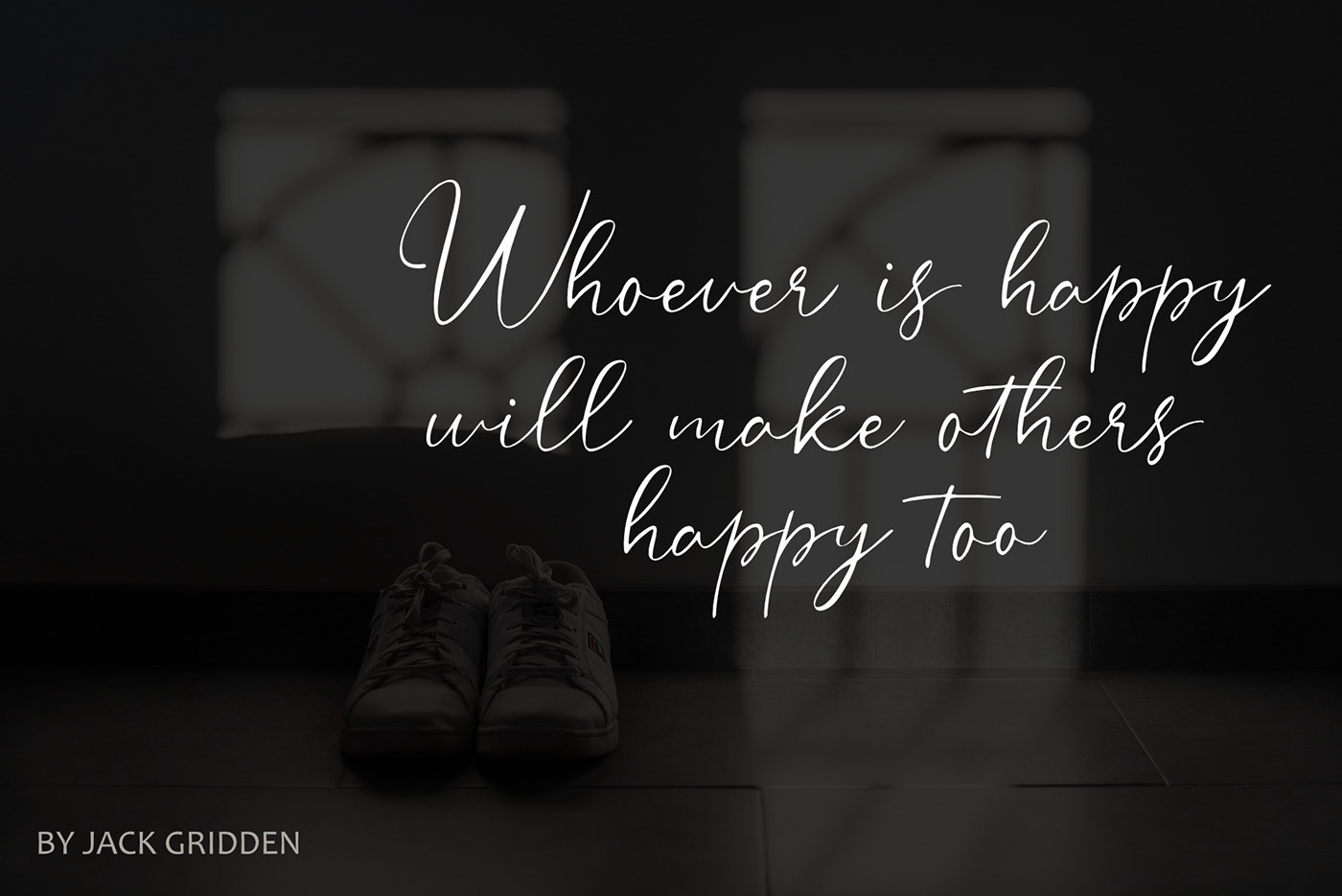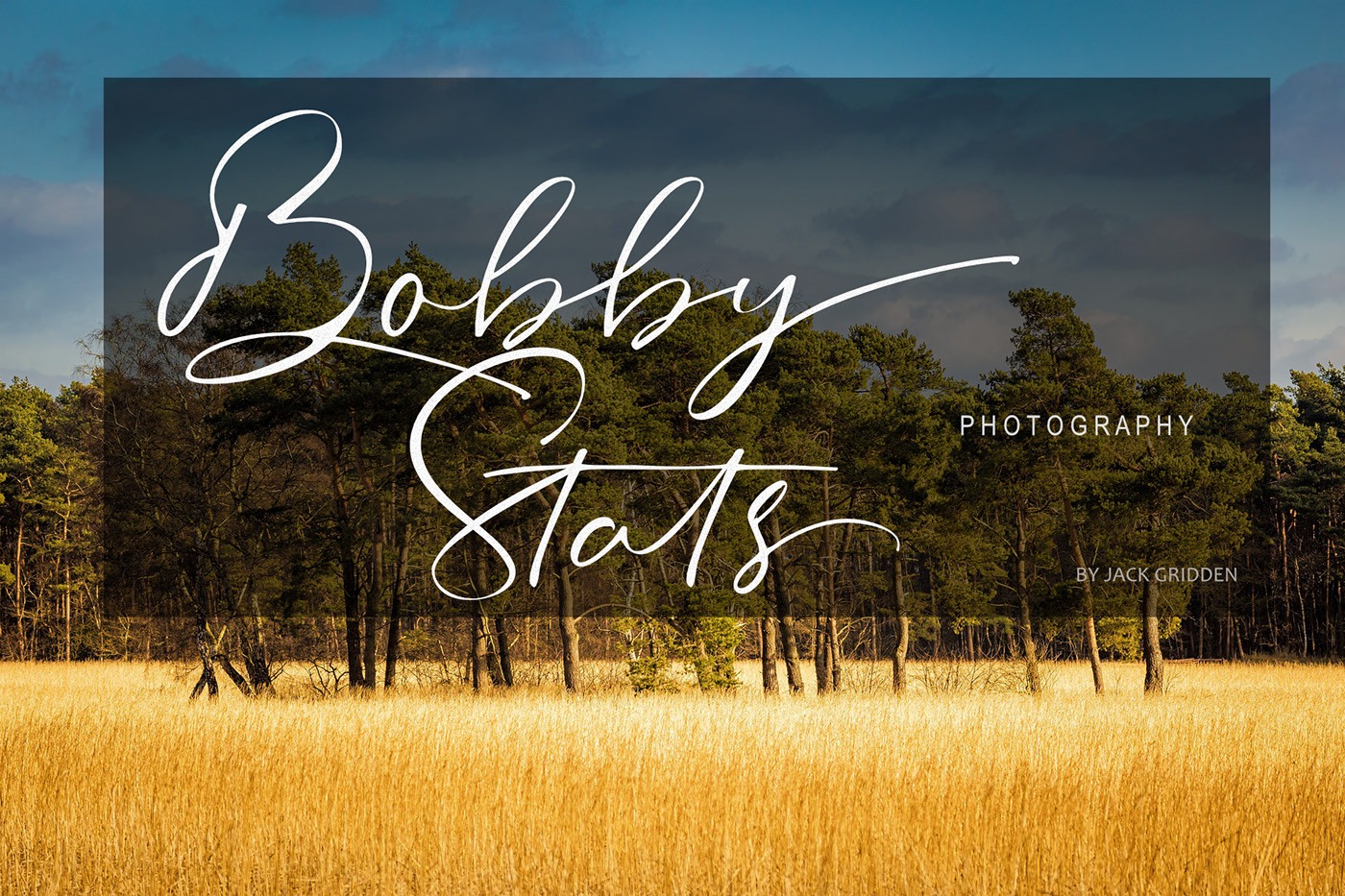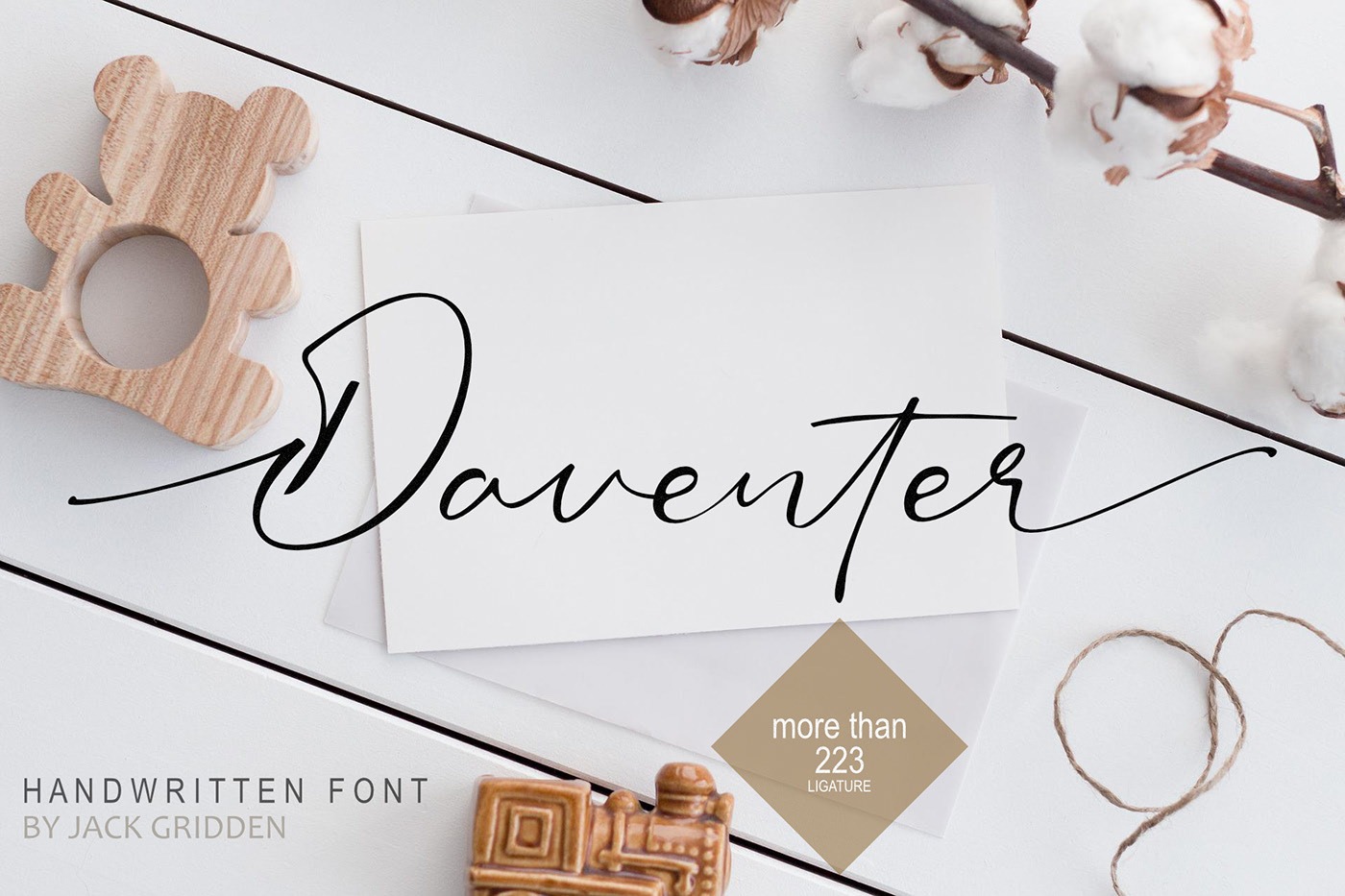
Daventer Handwritten Font
This is script font with handwritten vintage caligraphy style, with OpenType feature include of the font. It has beautiful and well-balanced characters, and as a result, it matches a wide pool of designs. Suitable for design, element design, event, logo, and awesome work, etc…